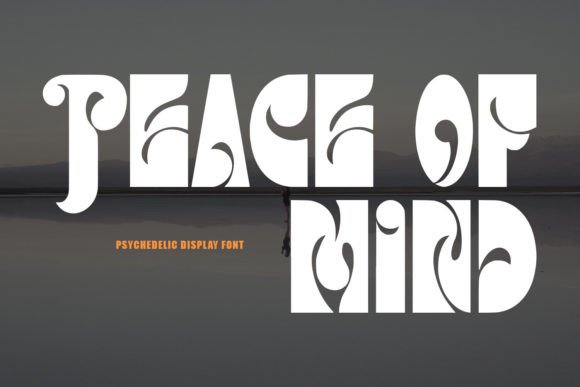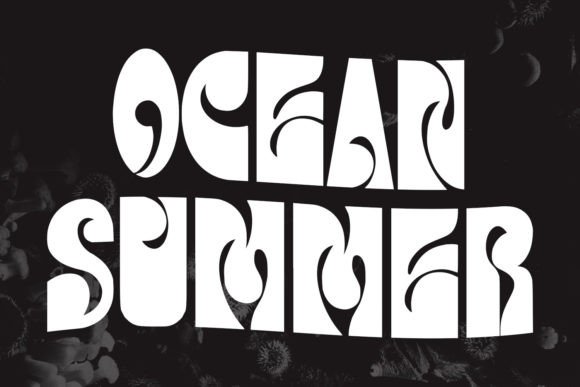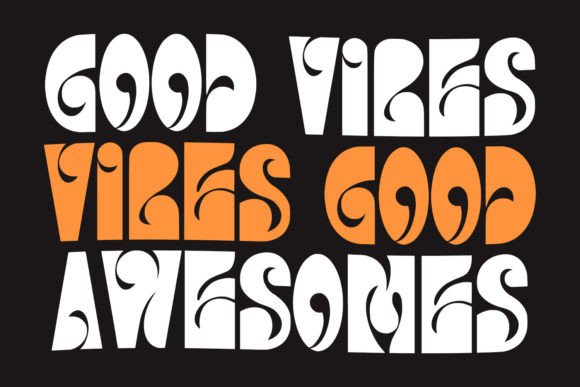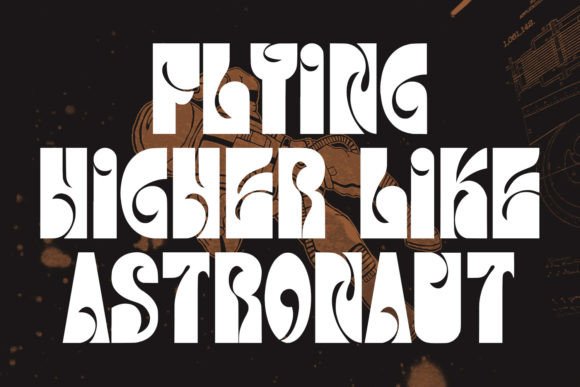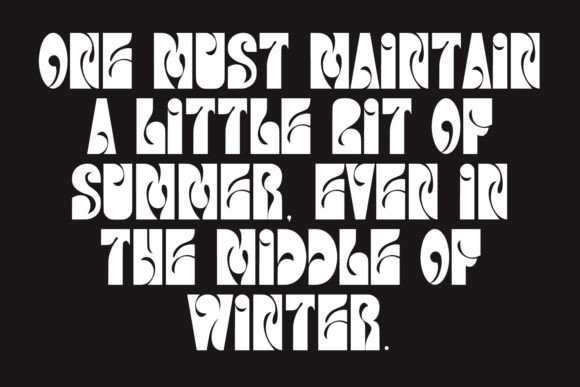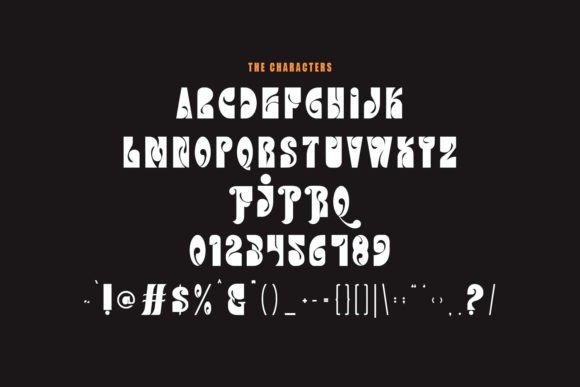
Introduction to Flanatta Font
Flanatta psychedelic display font is a hand-lettered font inspired by the vintage 70’s sign board, music, shop, and movies.
Flanatta includes opentype features Alternates It supports multilingual language.
Key Features of Flanatta Font